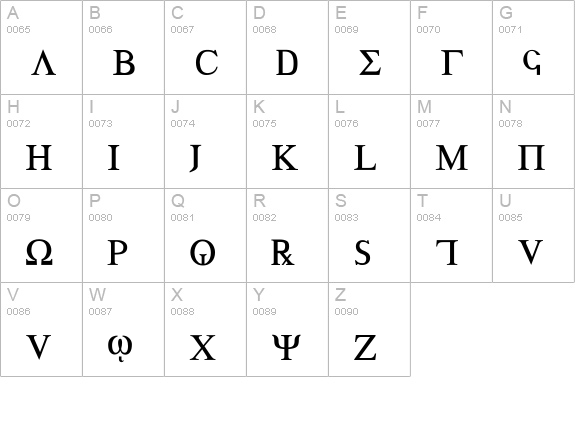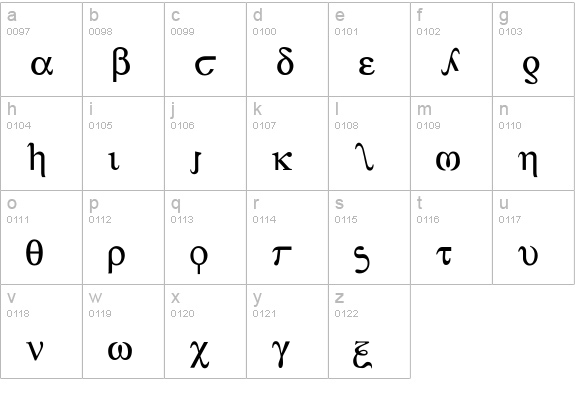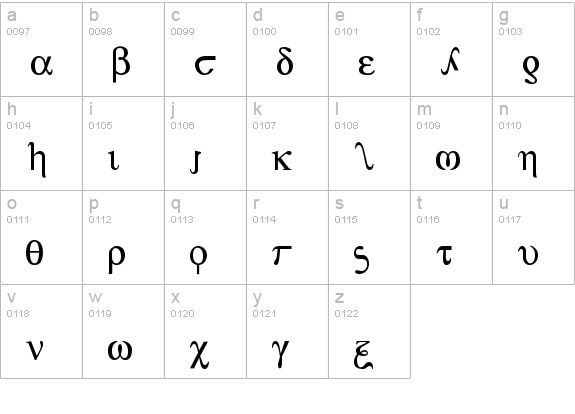
Achilles font is a modern and stylish typeface that exudes elegance and sophistication. Its sleek and versatile design makes it suitable for a wide range of creative projects, from branding to editorial design. The clean lines and sharp edges of Achilles font give it a contemporary look that is sure to make your text stand out. The best part? Achilles font is available for free download at FontsMarket.com, making it accessible to everyone looking to add a touch of class to their designs. Whether you're working on a logo, website, or print materials, Achilles font is a great choice for adding a touch of sophistication and style. Download it today and elevate your design projects with this stunning typeface.